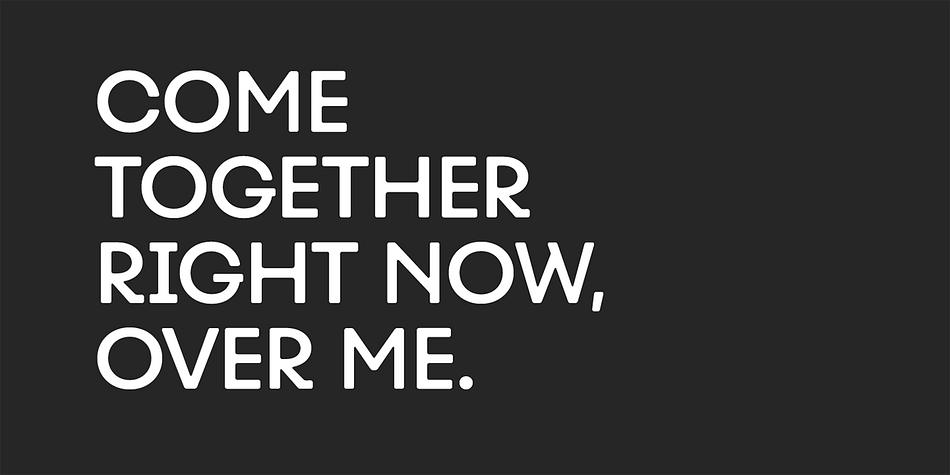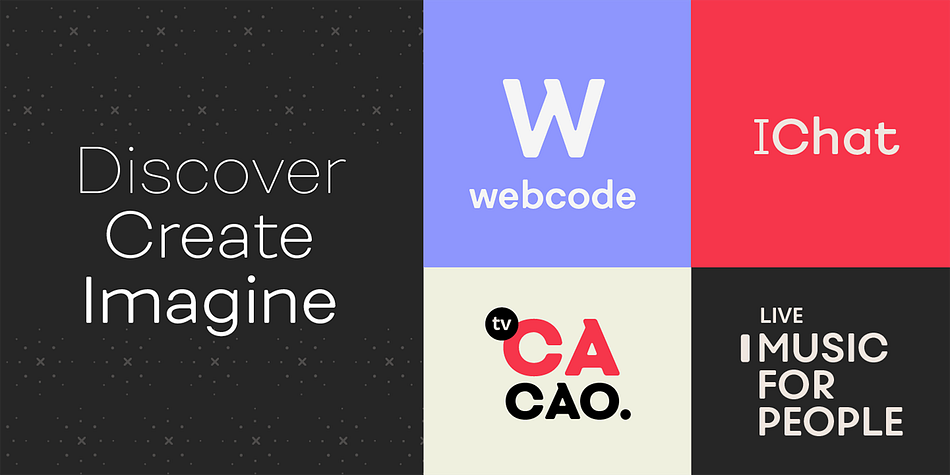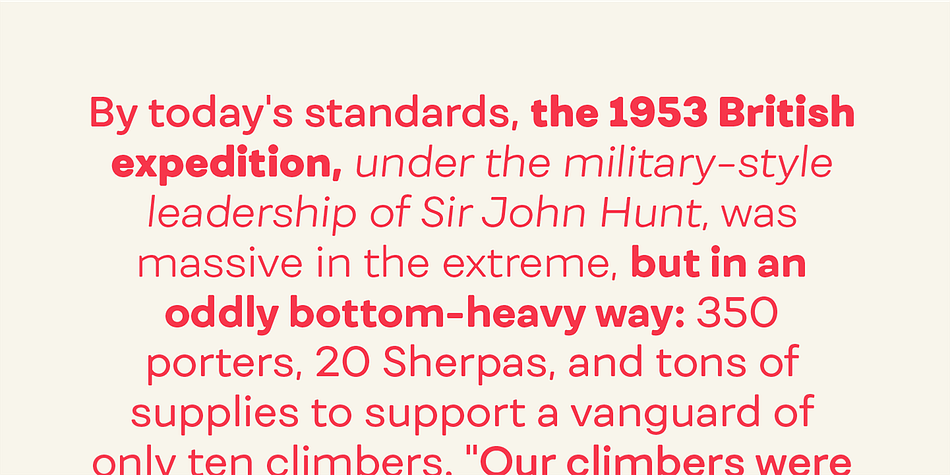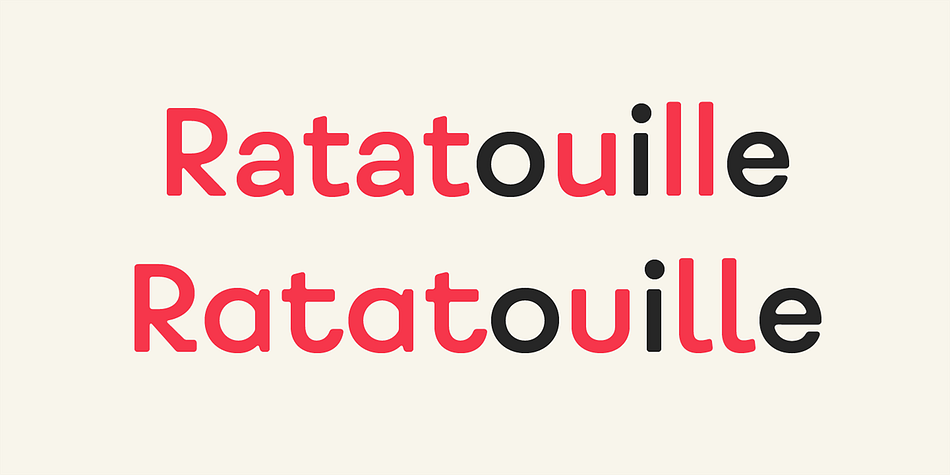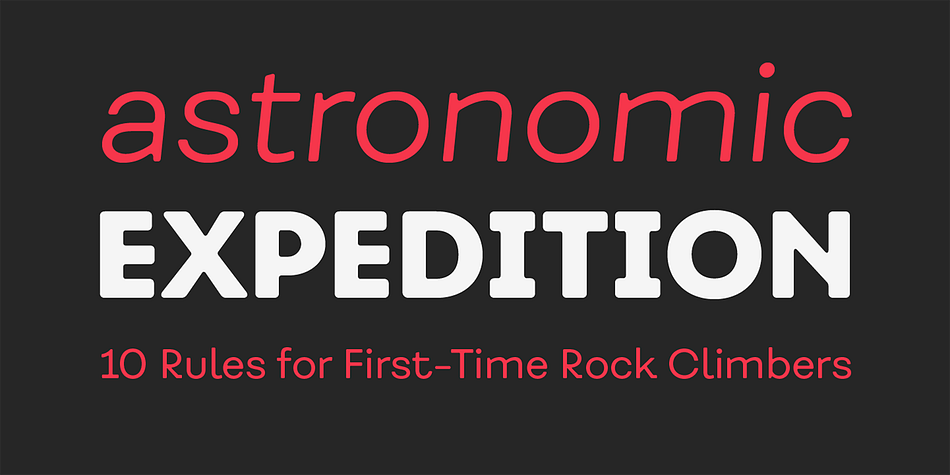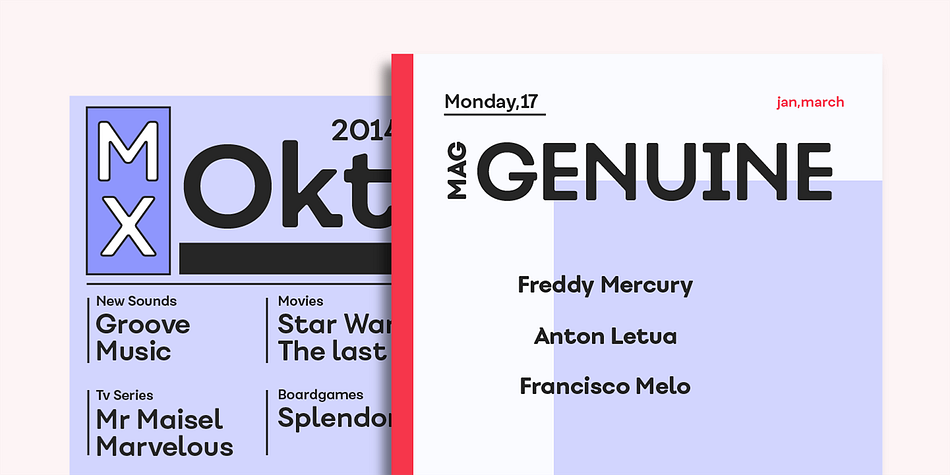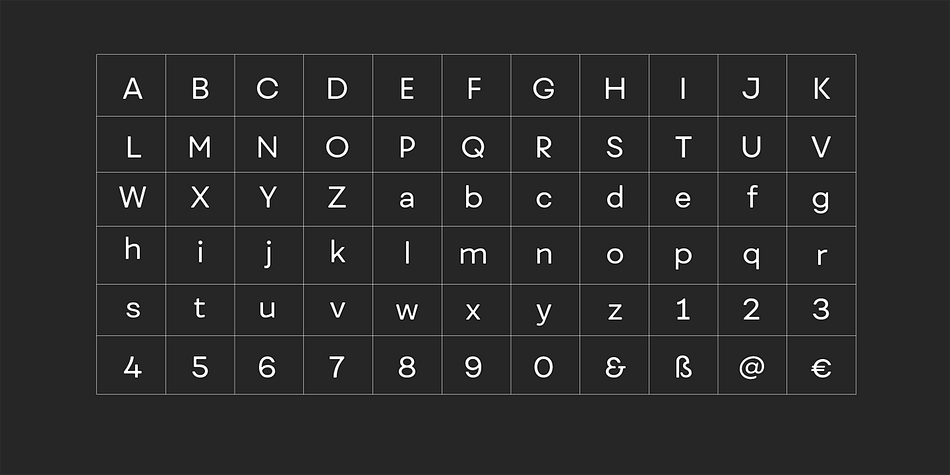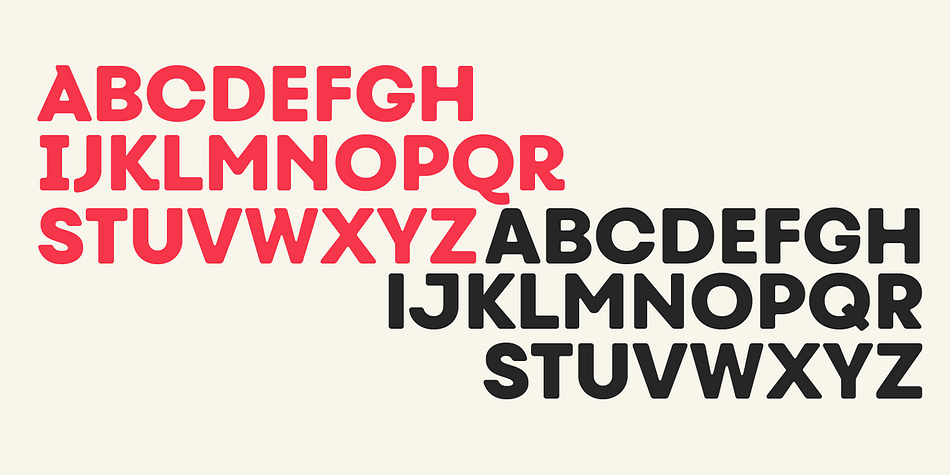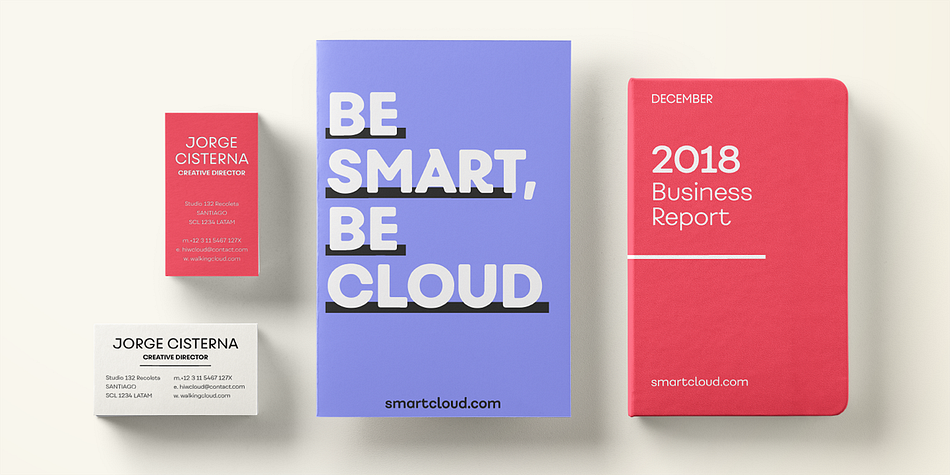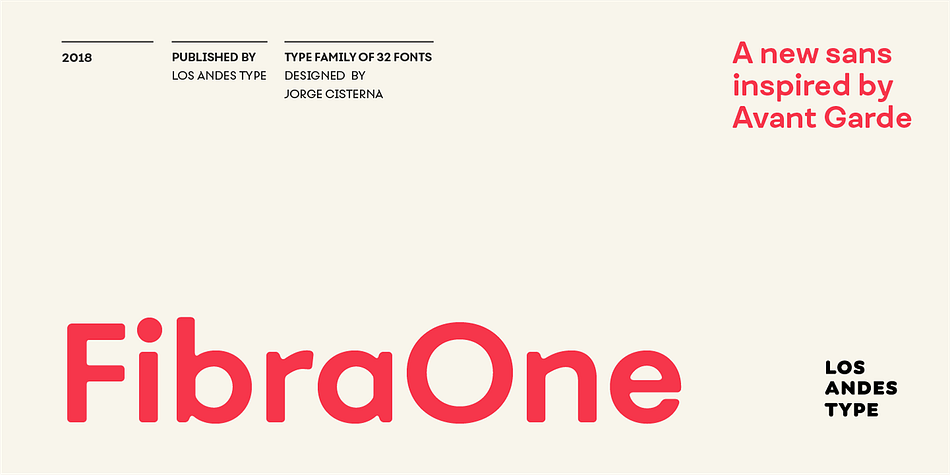
Designed by Jorge Cisterna, Fibra One is a sans serif font family. This typeface has thirty-two styles and was published by Los Andes Type.
Fibra One looks like a “soft” version of the Fibra font, but it is actually more than that—the second part of its name suggests that it is a reinterpretation of the original typeface. While this new version maintains the overall structure of Fibra and influence of the Avant Garde font, its shapes are different from those found in its predecessor—Fibra One features both soft corners and smooth transition between curved and straight sections. This gives the font a more dynamic and playful personality.
Fibra One keeps the original contrast between curves and straight lines in glyphs such as ’n’ and ‘h’ (not found in rounded glyphs such as ‘a’ and ‘d’); details of display characters (e.g. three upper terminals in ‘W’ and projection off the stem in ‘A’); and exaggerated terminal in ‘R’. All these features give Fibra One a strong personality—a typeface that ‘gives you the chills’.
Fibra One was specially designed for display use. The font has a very generous x-height that allows for use in corporate text, thanks to its good readability. Fibra One comes with 2 subfamilies—a more ’normal’ Basic family, with a smaller amount of stylistic features, for use in subheadings or any other type of text that requires formality, and an Alt family that shows off the true potential of the font, making it the perfect choice for magazine headlines, posters and logotypes.